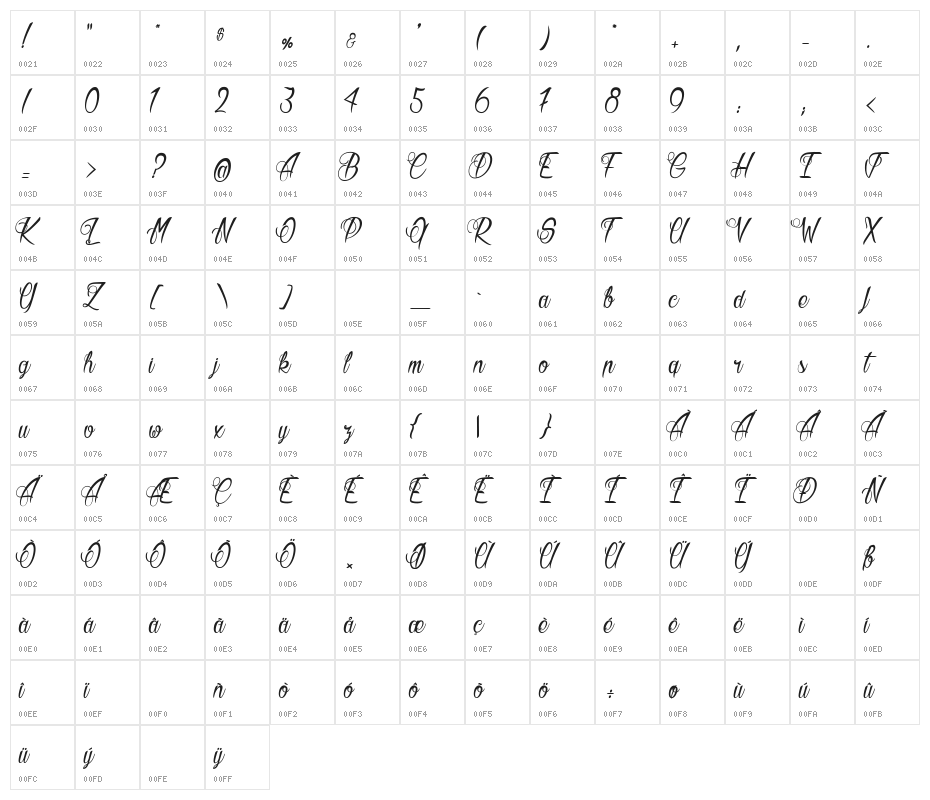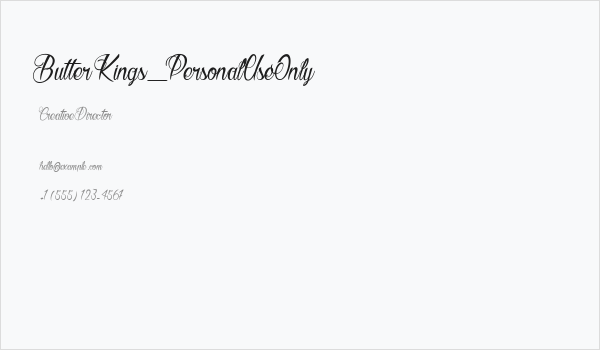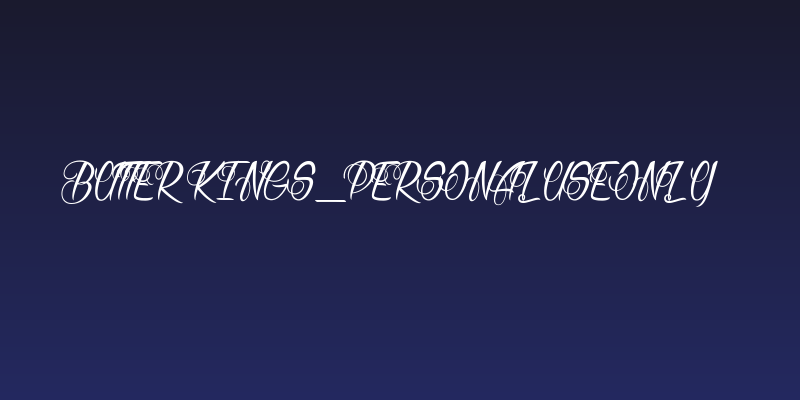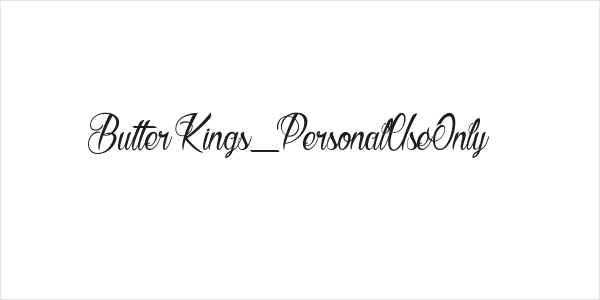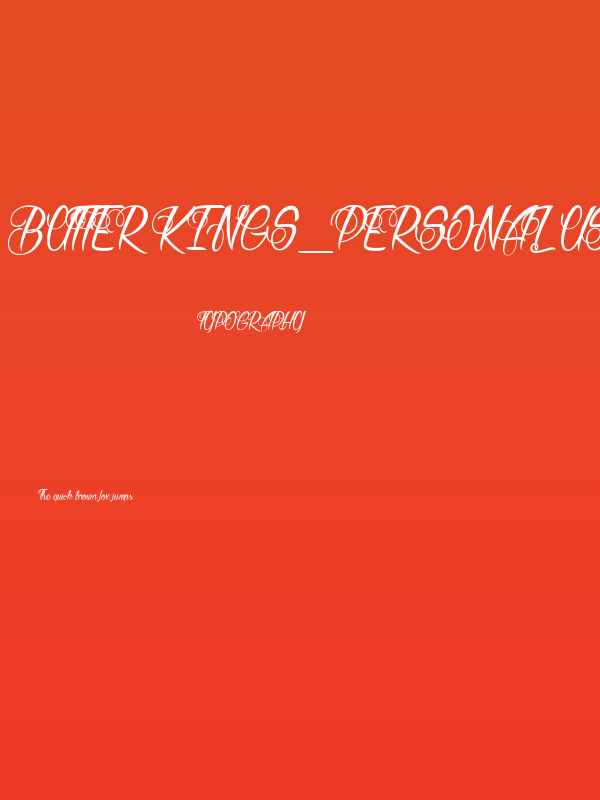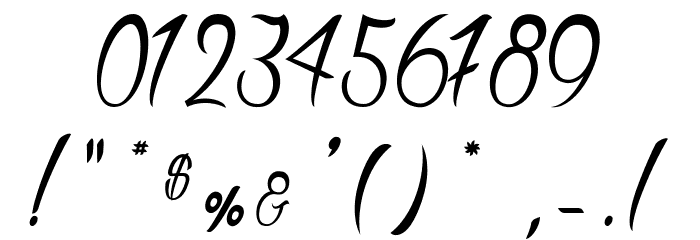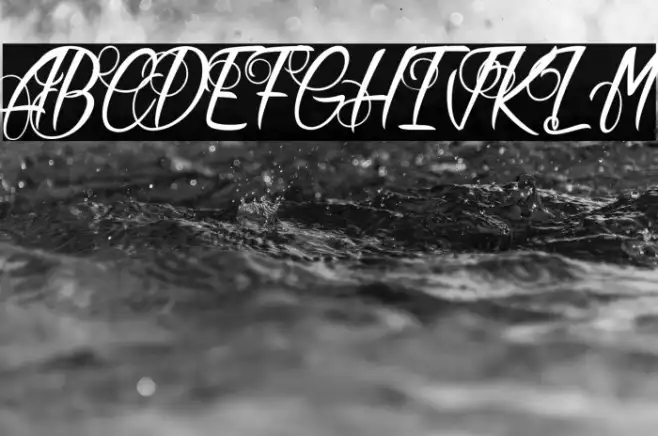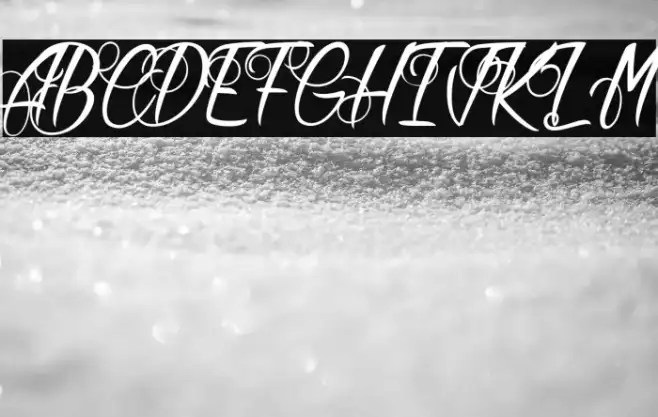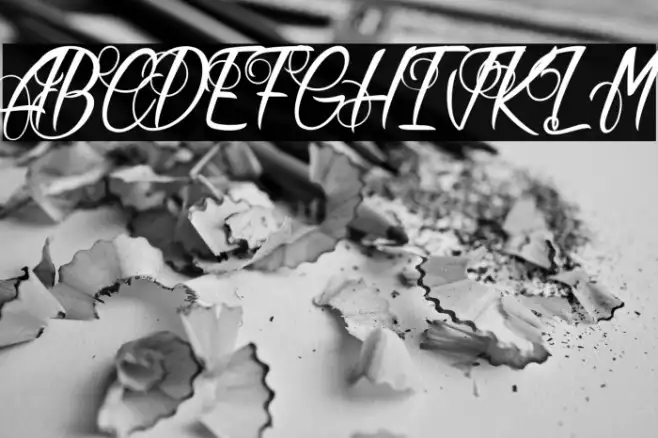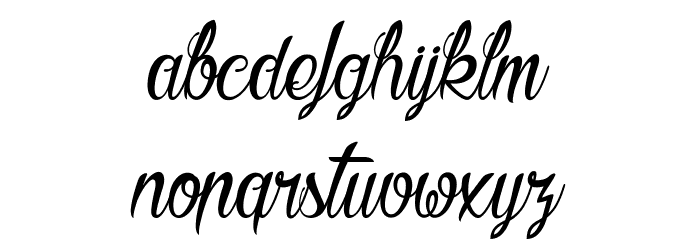
Butter Kings_PersonalUseOnly Font
Butter Kings_PersonalUseOnly Description
This font features an elegant and flowing script style with intricate loops and flourishes. The uppercase letters are particularly ornate, showcasing a high level of detail and sophistication. The lowercase letters maintain a consistent style, offering a smooth and connected appearance that enhances readability while preserving the decorative nature. Numbers and special characters are designed to match the overall aesthetic, ensuring a cohesive look across all text elements. The font's graceful curves and artistic flair make it ideal for projects that require a touch of elegance and creativity.
| Proposed Projects | Ideal for wedding invitations, greeting cards, branding, and decorative headlines. |